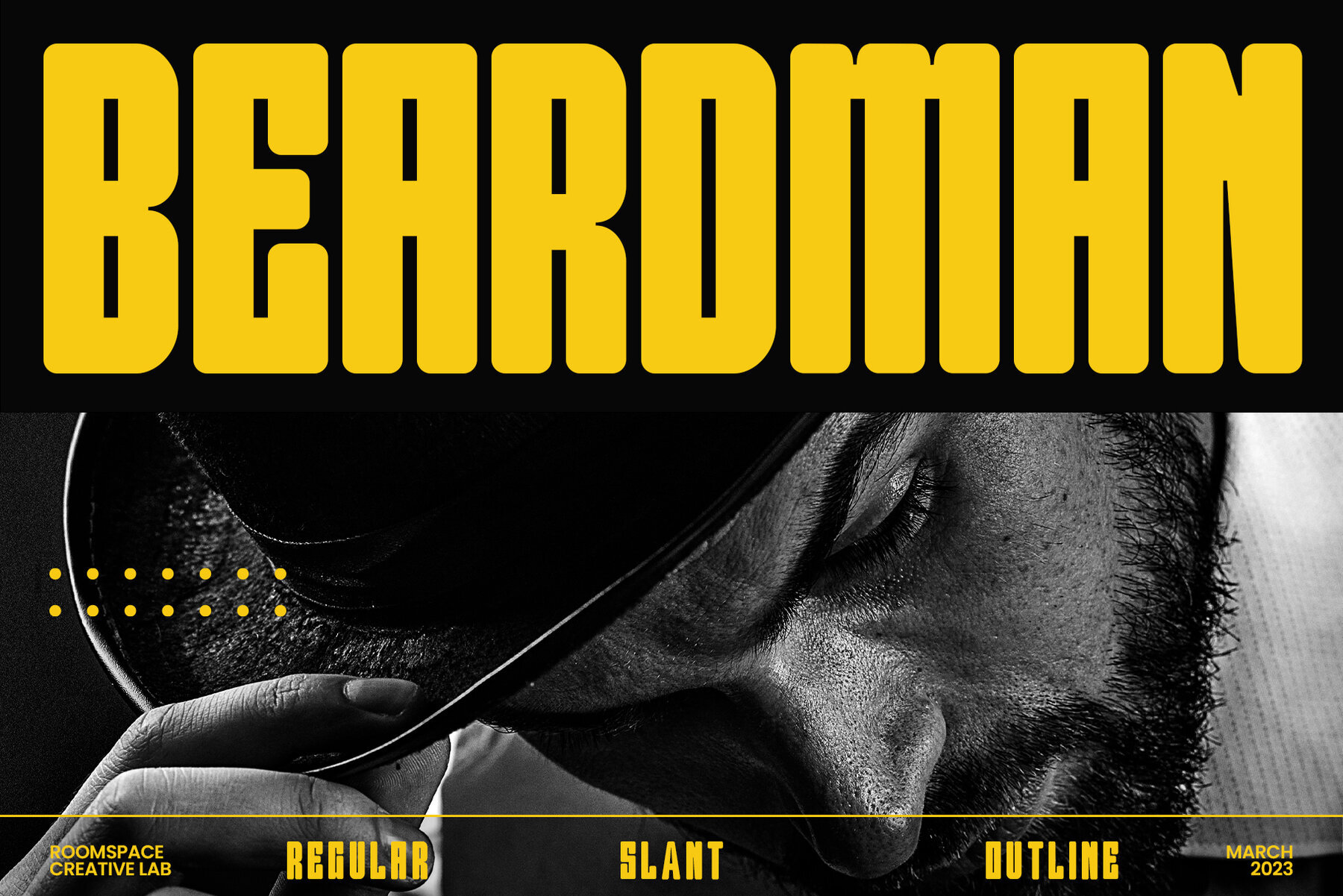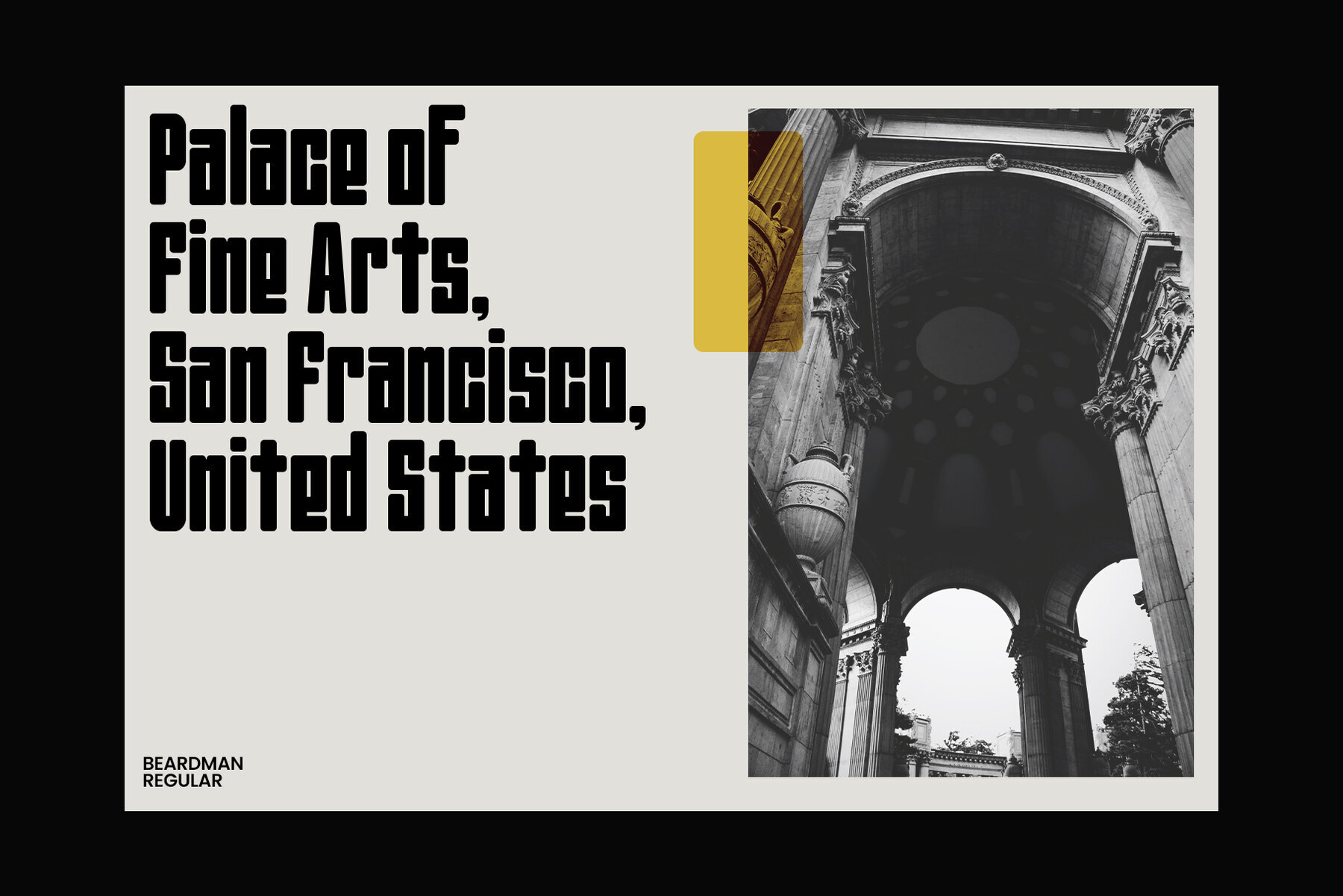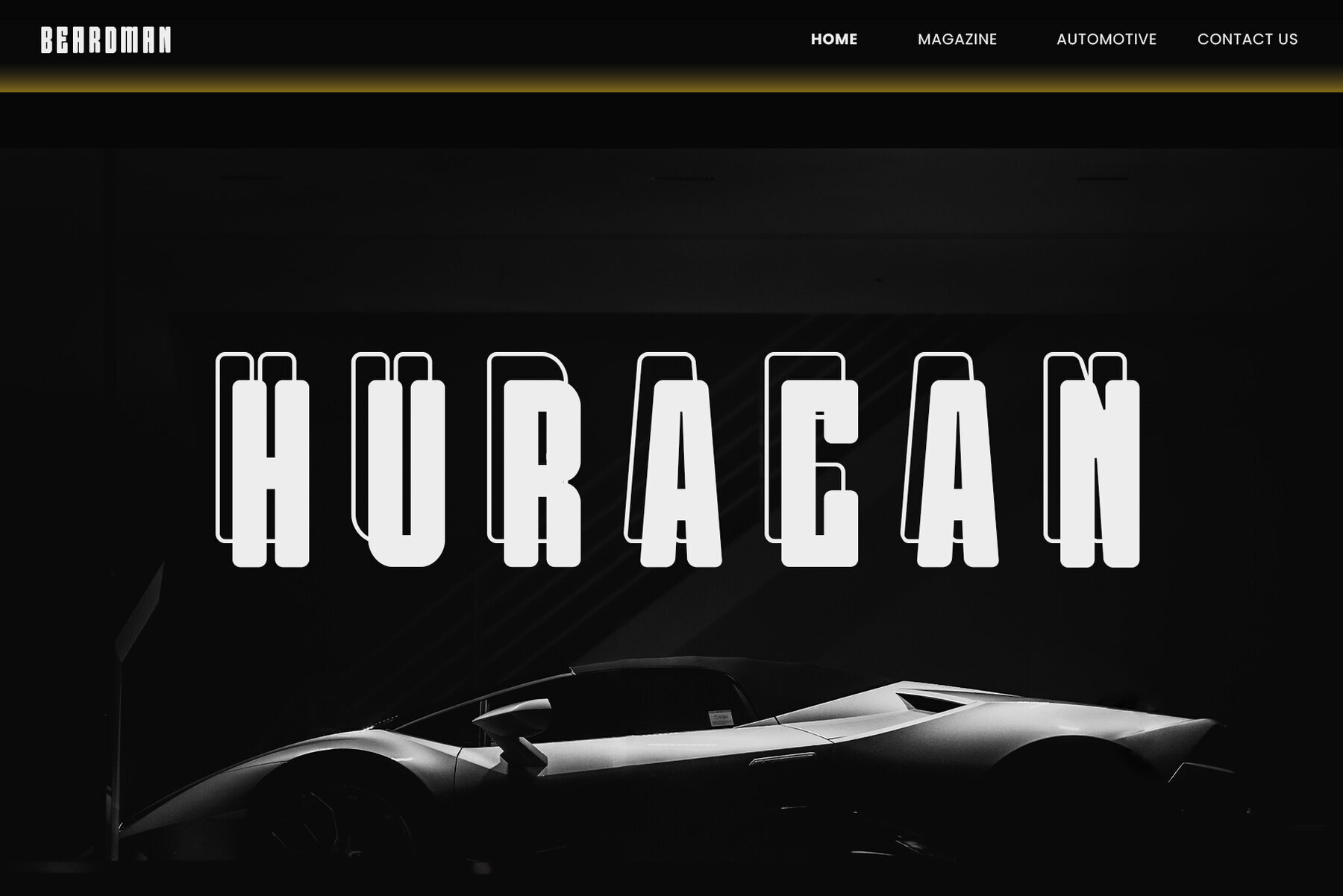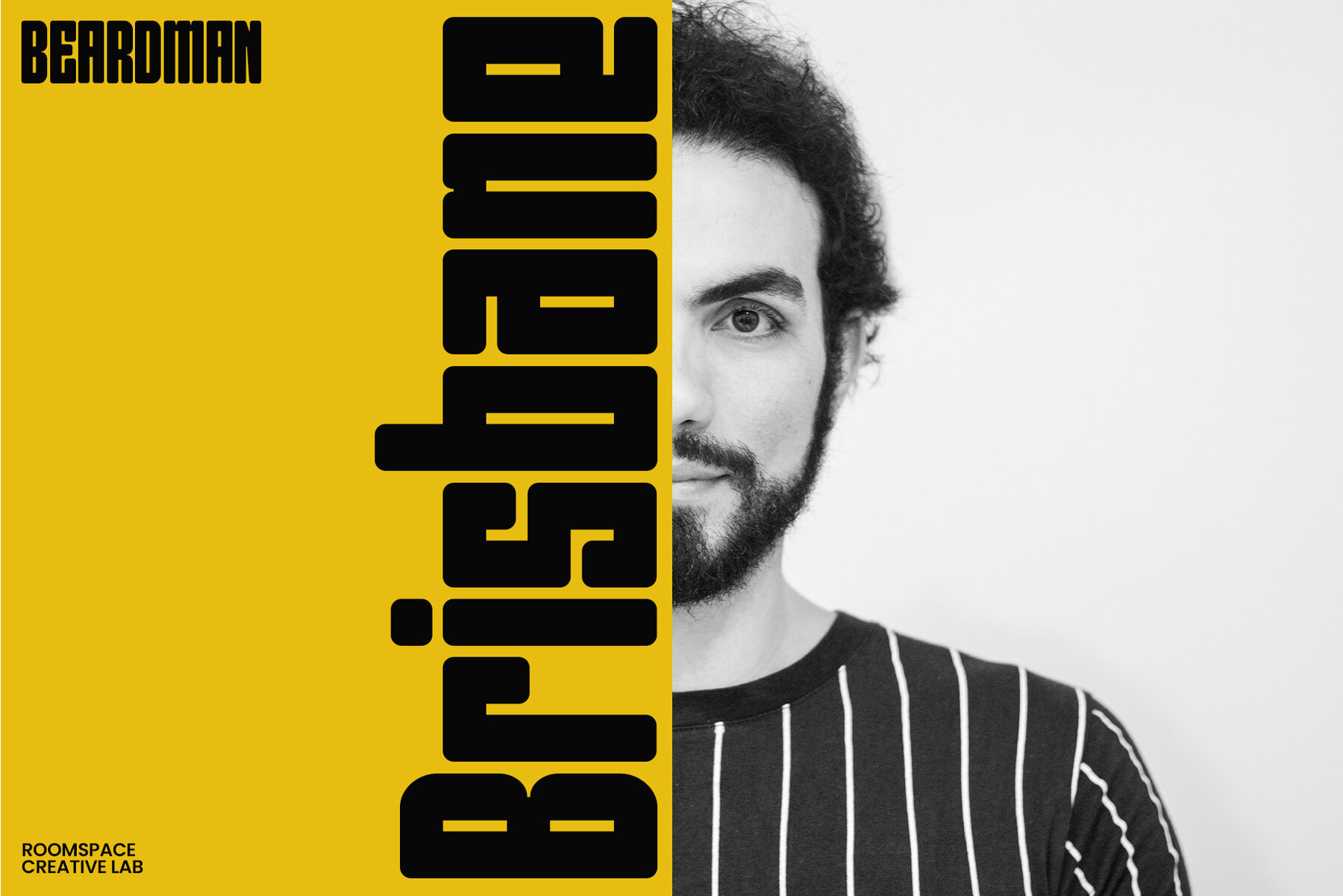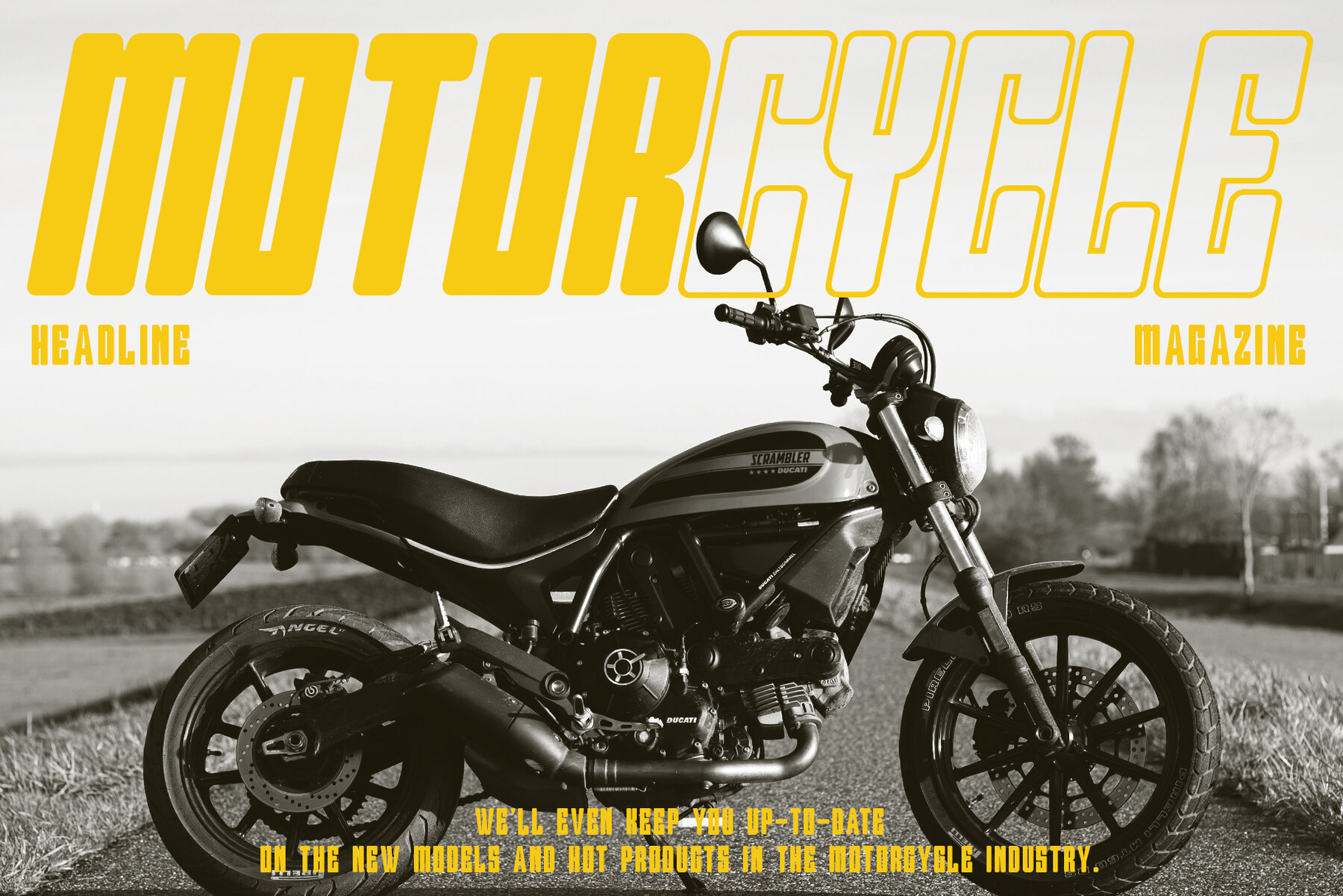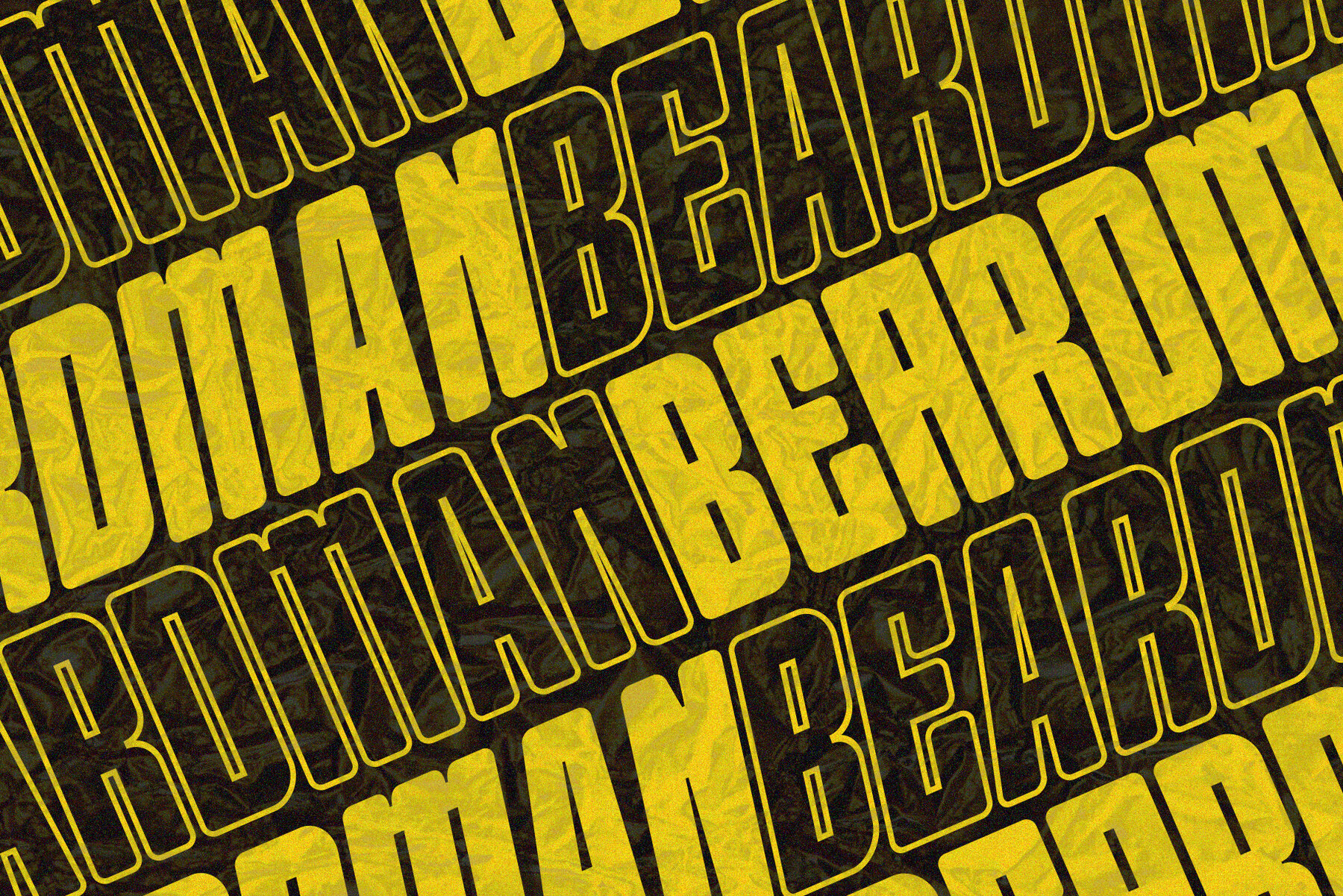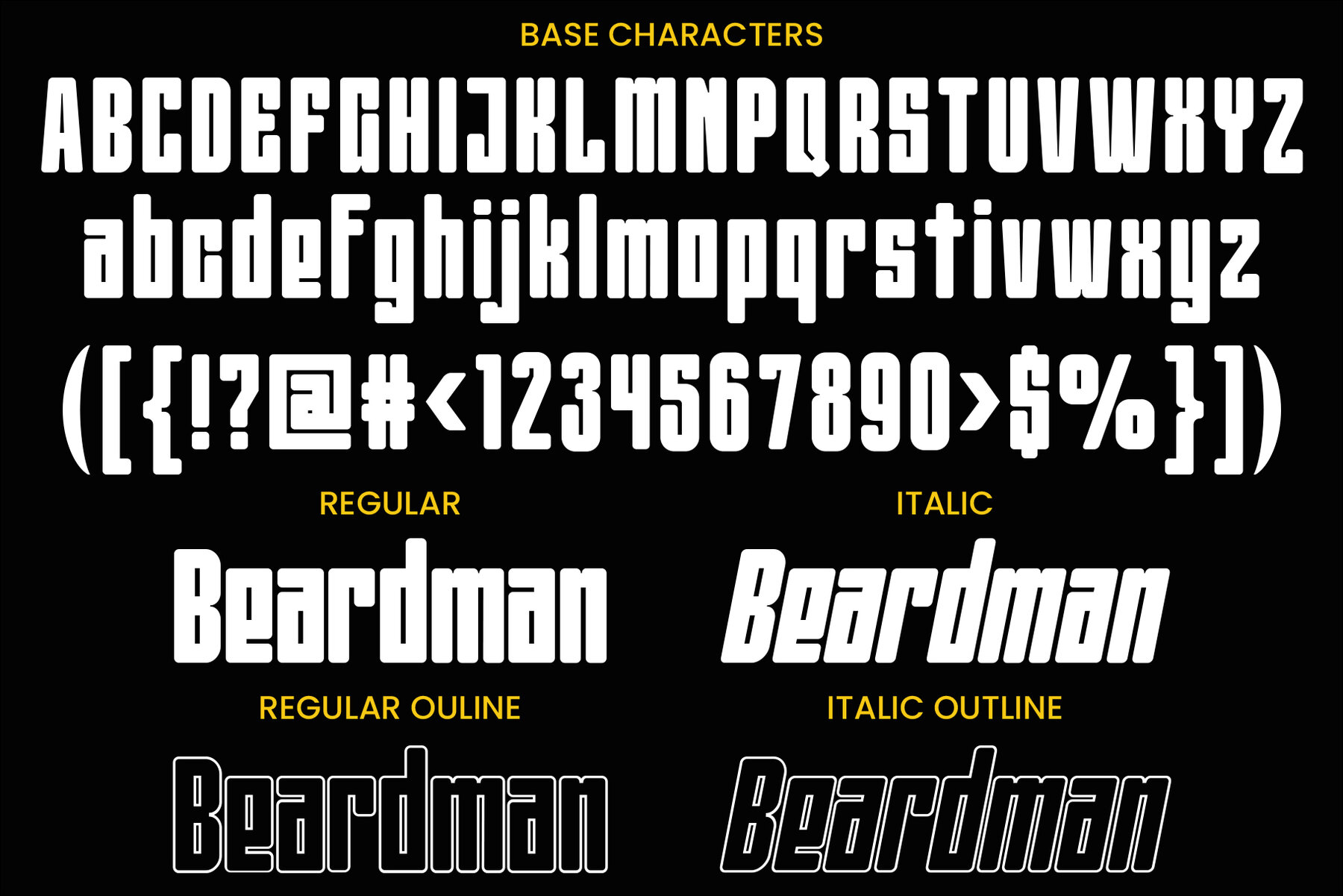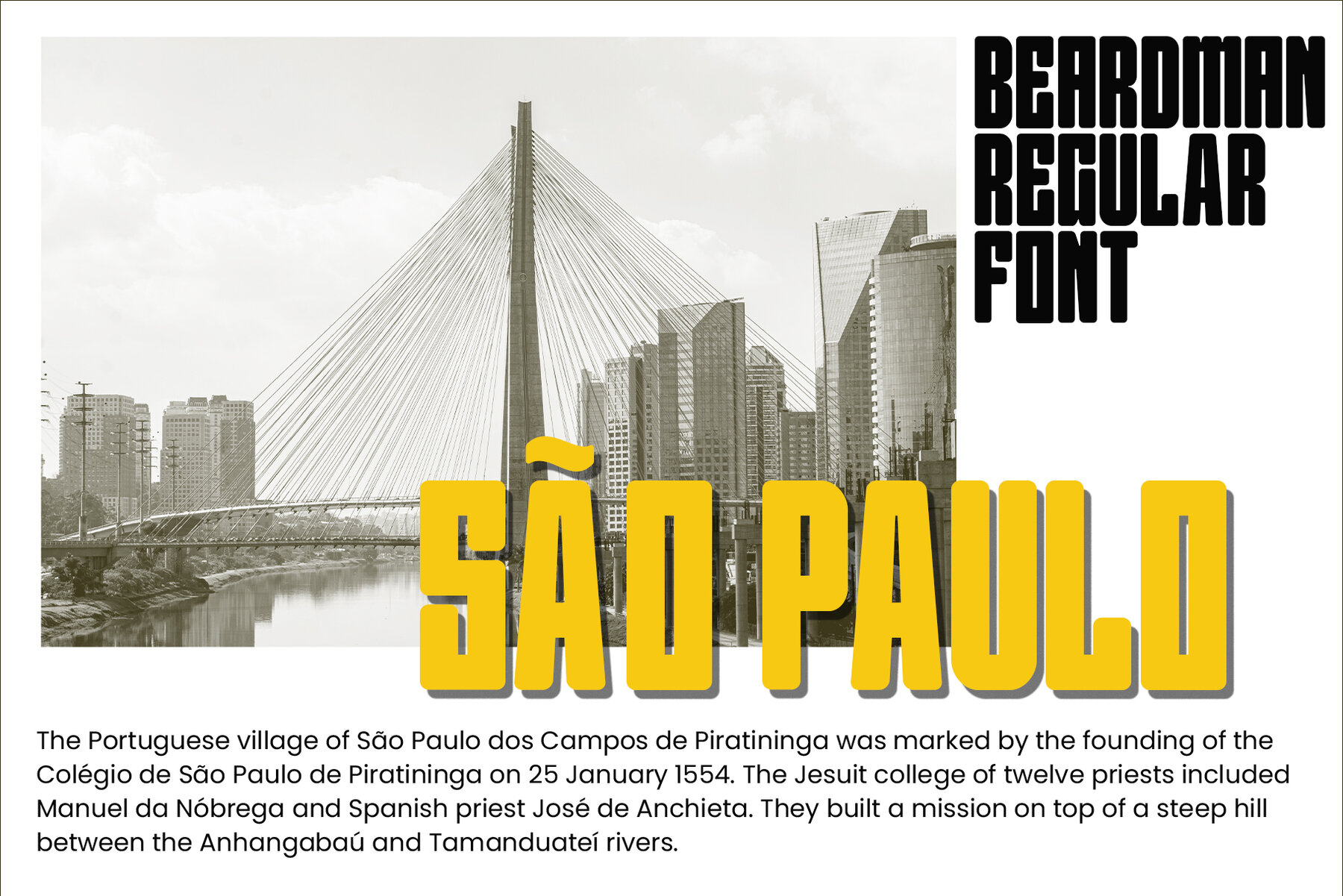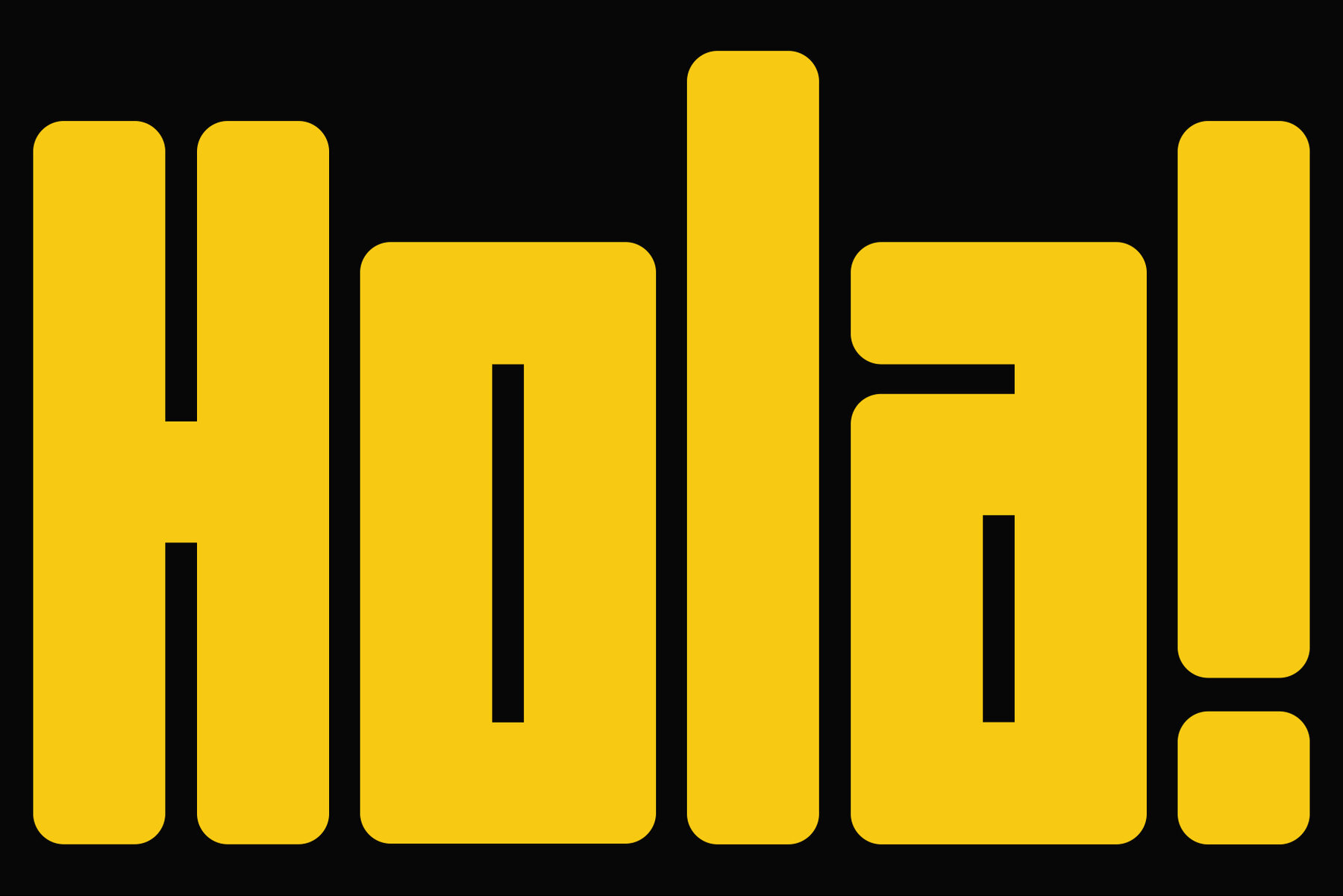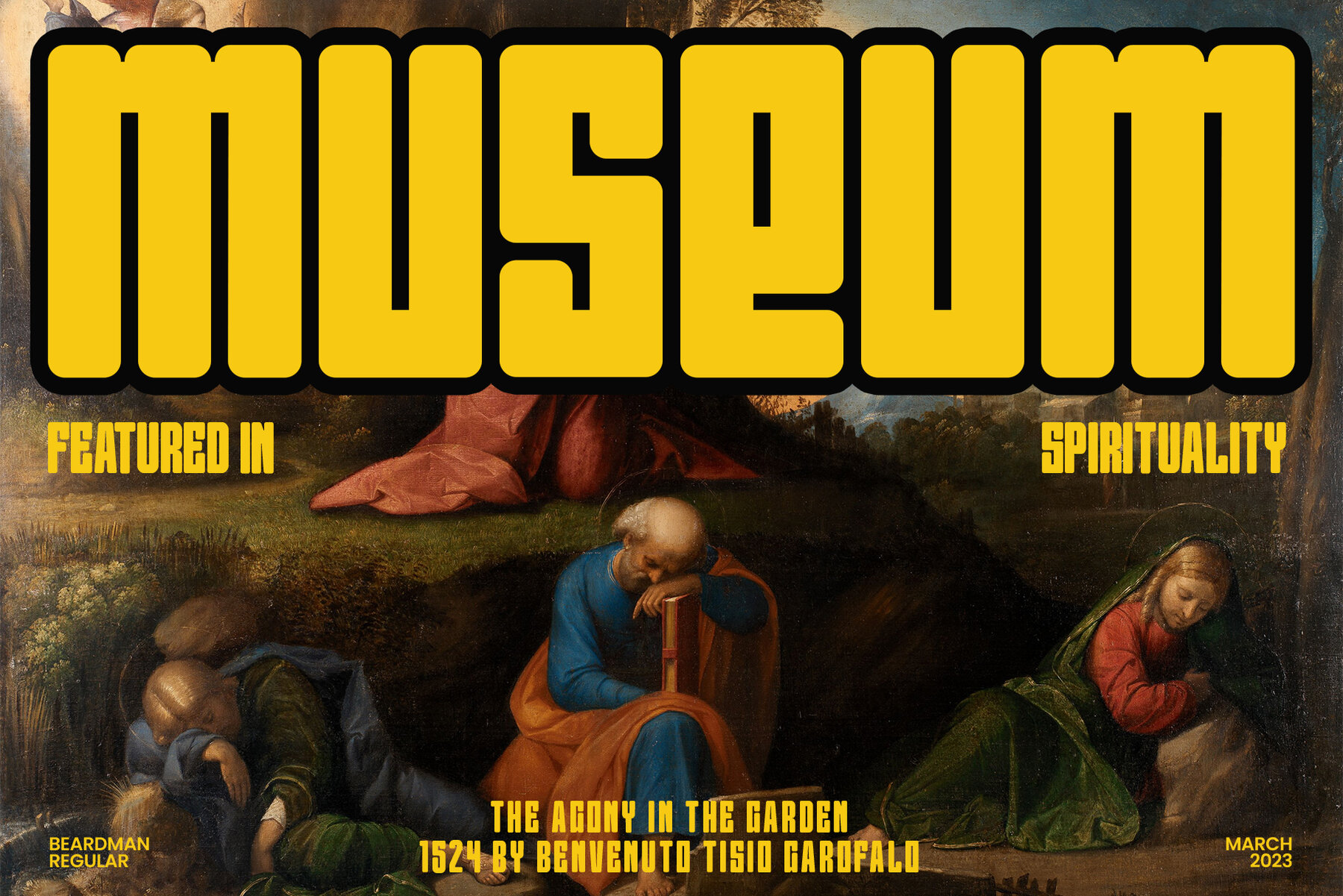
Beardman Font
Beardman is a condensed sans-serif font designed specifically for bold and powerful headlines and titles. With four variants available: regular, italic, regular outline, and italic outline, this font allows you to express yourself with a style that suits your design project.
The name "Beardman" is inspired by the meaning of a man who is masculine but has a soft heart, and it is reflected in the font's design. With strong and sturdy letterforms, the font also has a gentle and smooth touch that gives an elegant and modern impression.
With its strong and expressive appearance, "Beardman" is suitable for use in graphic design projects such as posters, brochures, magazines, websites, and much more. Add a touch of masculine yet gentle to your design with the "Beardman" font.